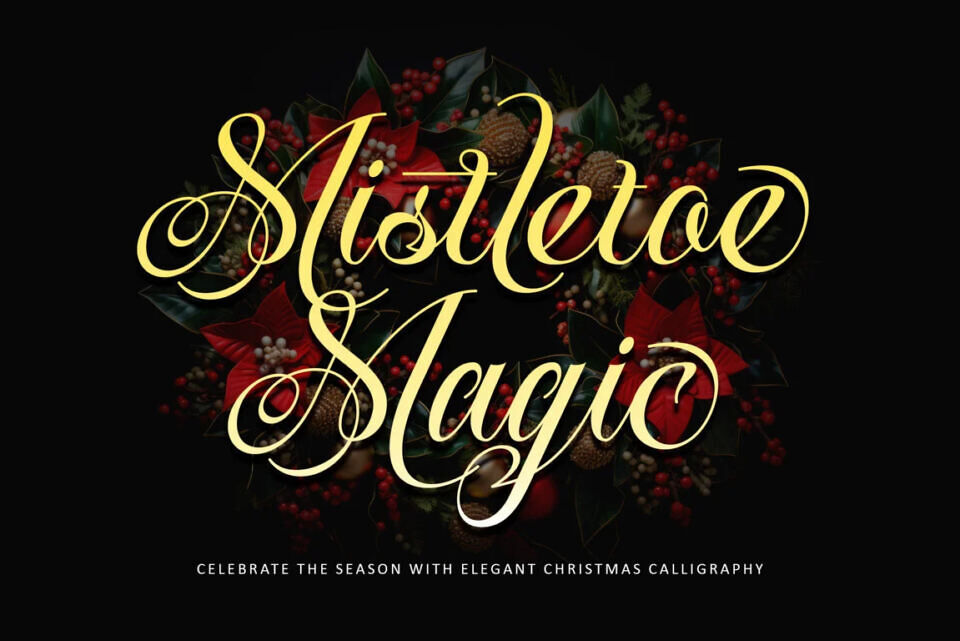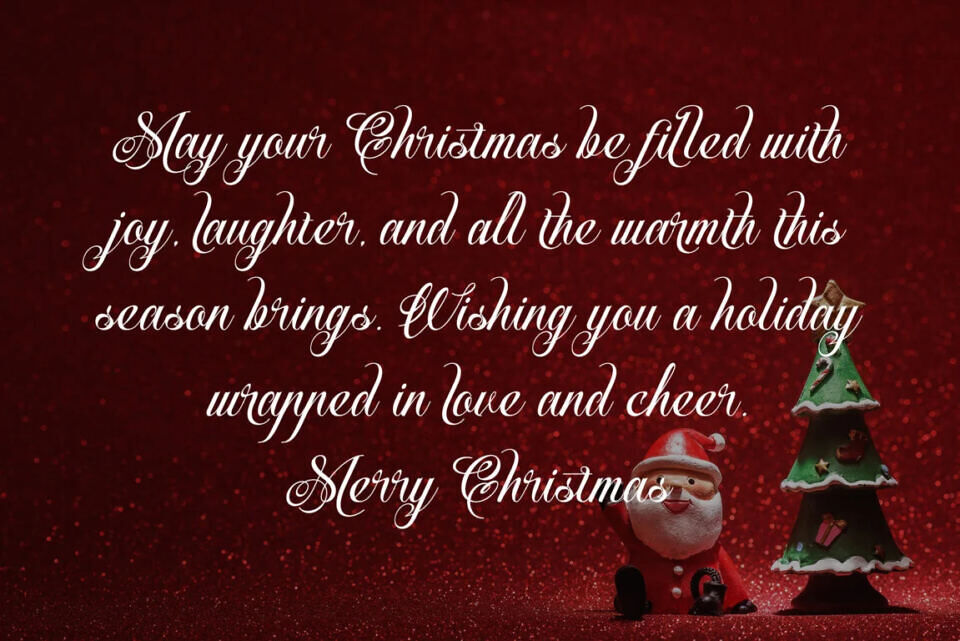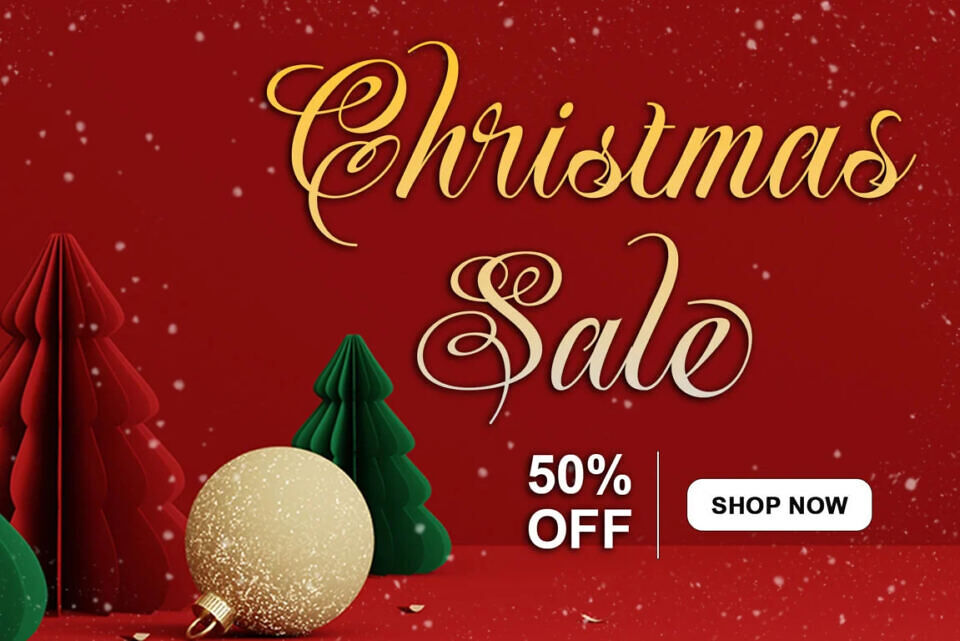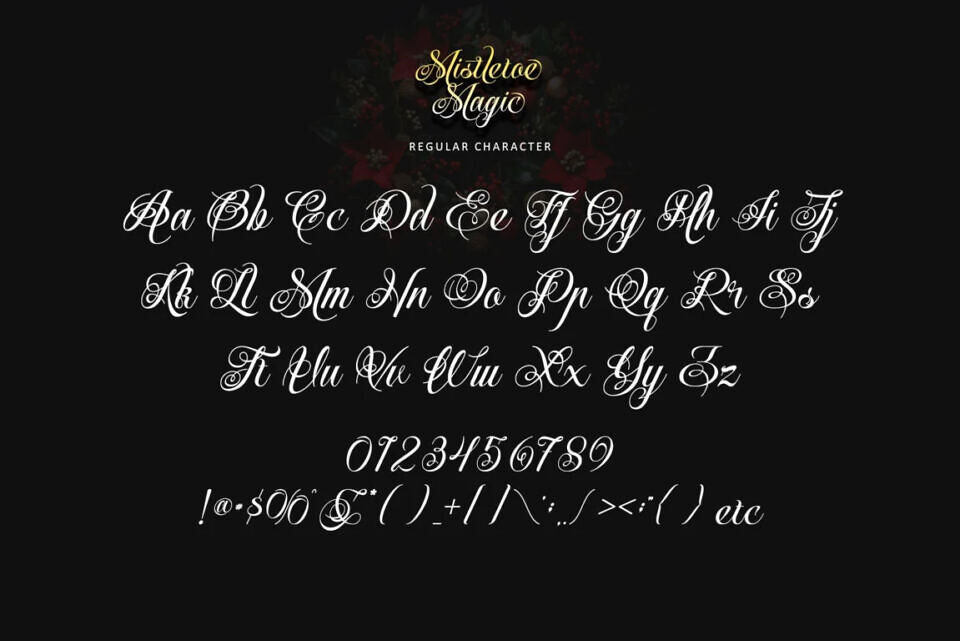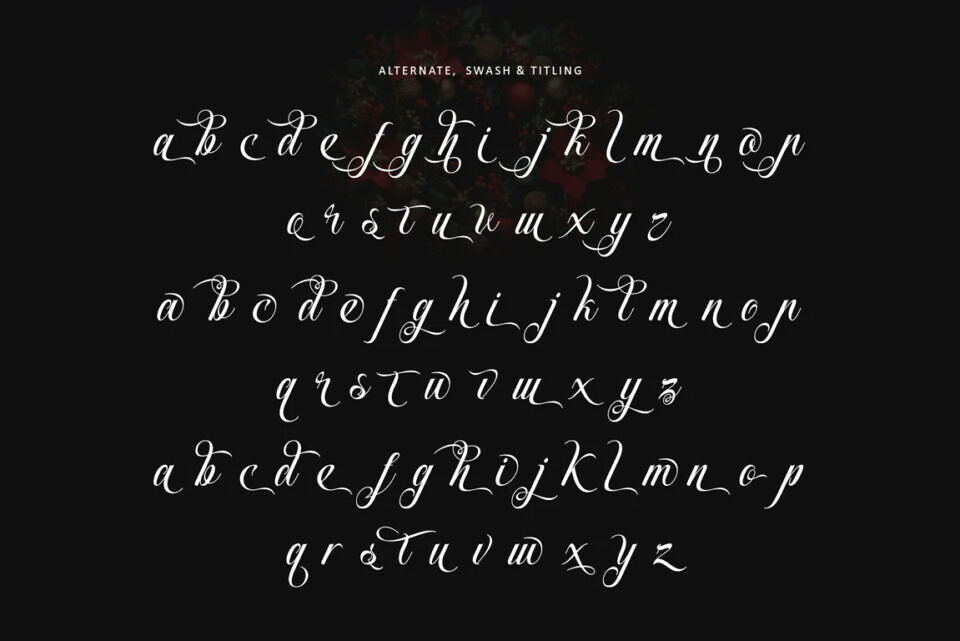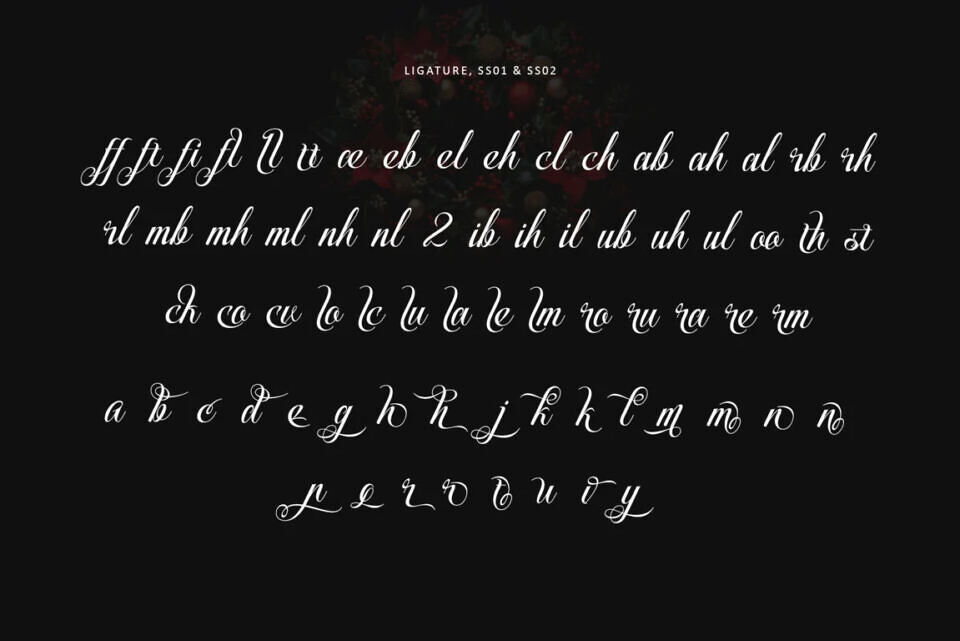
Mistletoe Magic is a captivating calligraphy font that exudes festive elegance and sophistication. Fall in love with its enchanting style, perfect for creating stunning holiday designs. Mistletoe Magic brings a touch of glamour and class to your Christmas moments. This font is PUA encoded, ensuring easy access to all the exquisite glyphs and swashes!